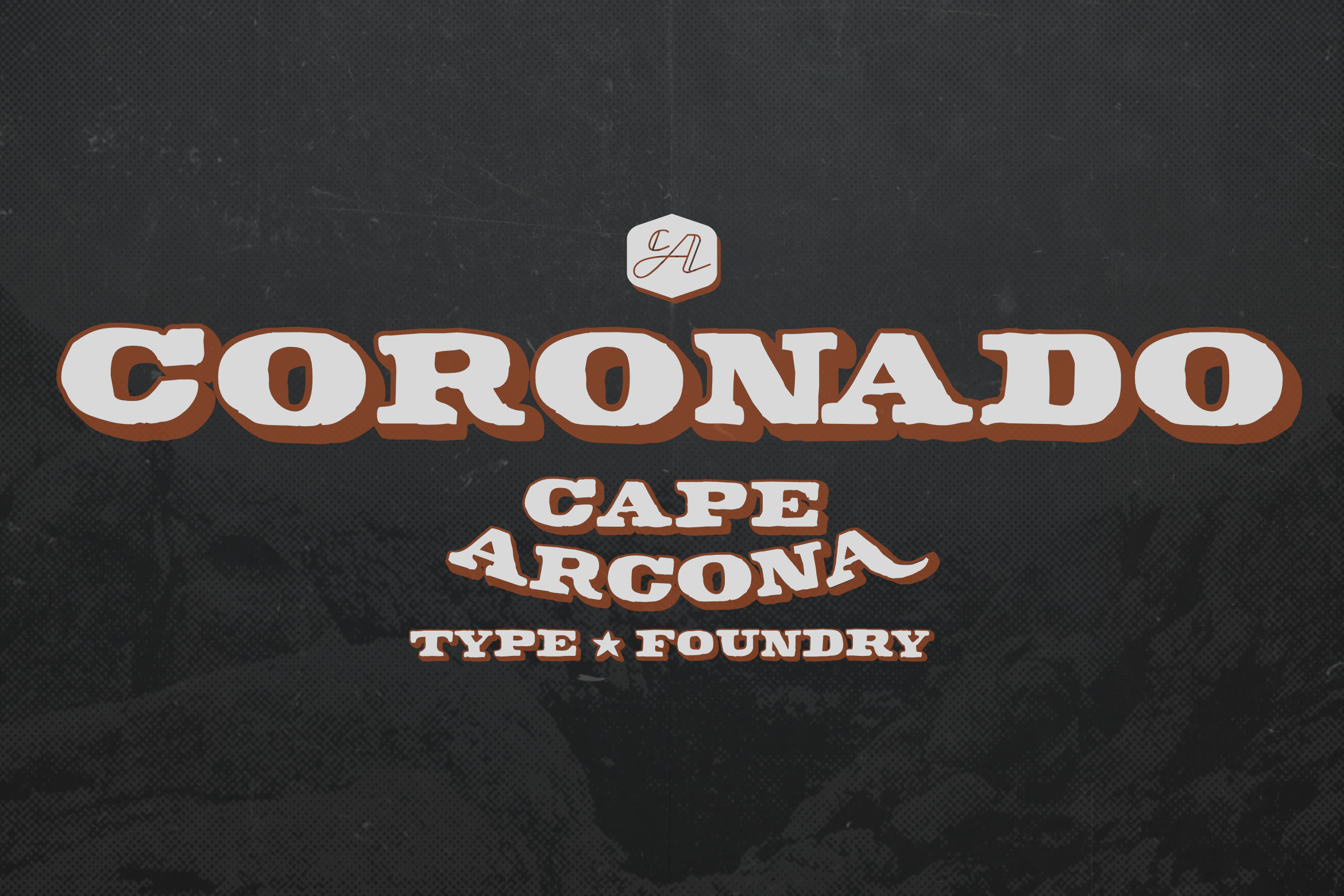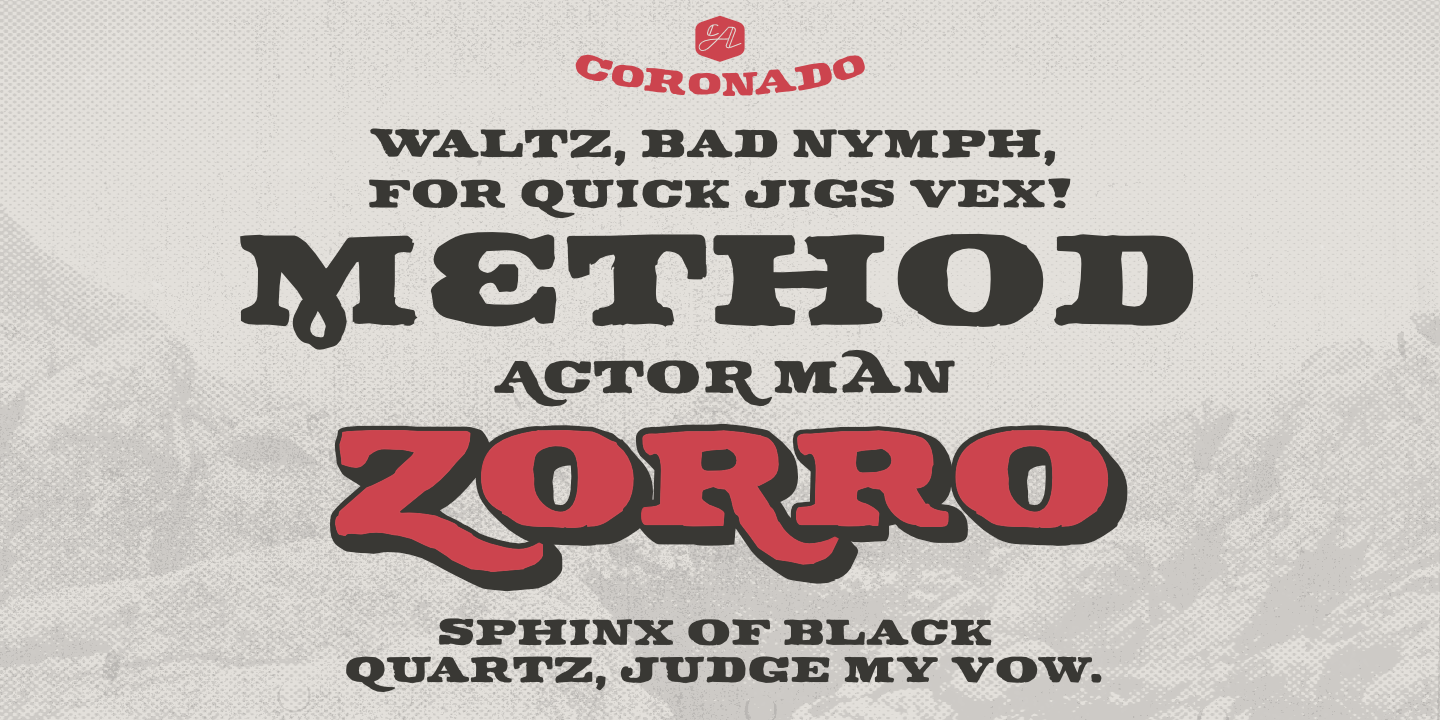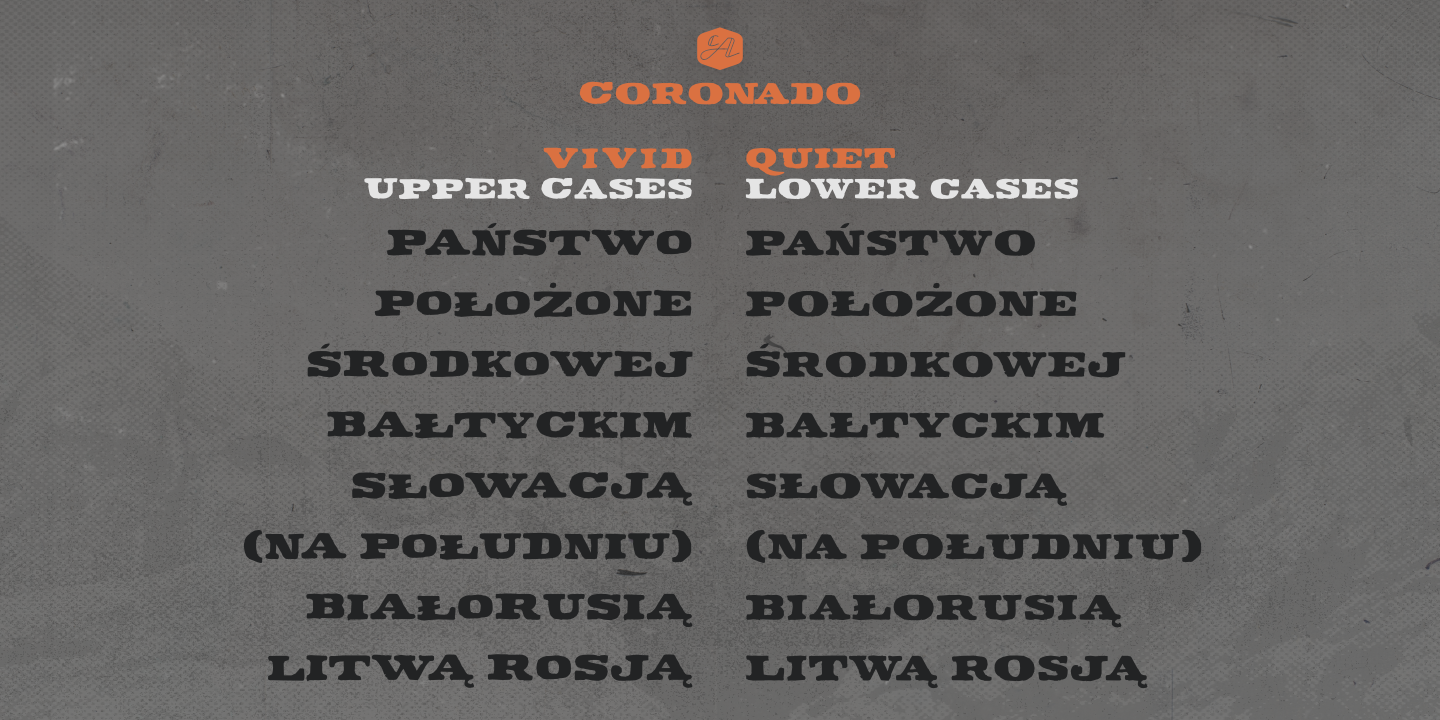
“Sometimes, when we are lying on the beach, we dream of forests, dark green forests, where no man has ever set his foot in. And where beavers are cutting trees and squirrels are collecting nuts. Near this forest lives a man who runs a bar. He is old and white-bearded and his bar is called ‘Coronado Bar’. The letters on-top of the entry fit to his block-house just as well as to the ranch in California, where he used to live for a long time…”
CA Coronado is a display typeface that fits perfect for headlines, logotypes, or brands. With its rough style, it gives a used and authentic look. Although upper and lower-cases might look pretty similar at first glance, they are different and can be used as alternates. The upper cases are a bit more vivid, while the lower cases stay in line. Use the Shadow-Style for the extra kick, while the Regular-style can be used as a filling.
CA Coronado comes in two styles: Regular and Shadow